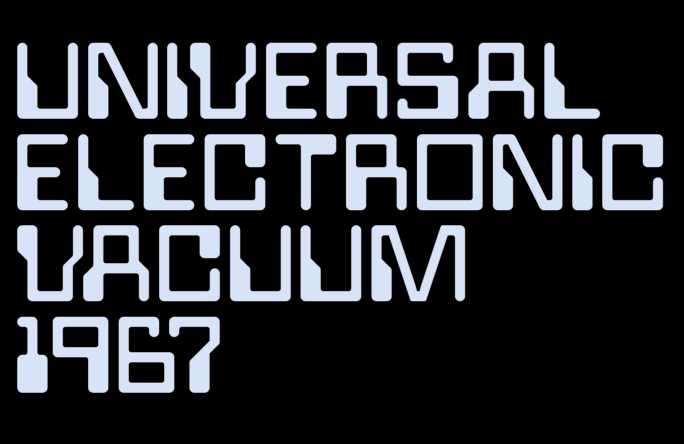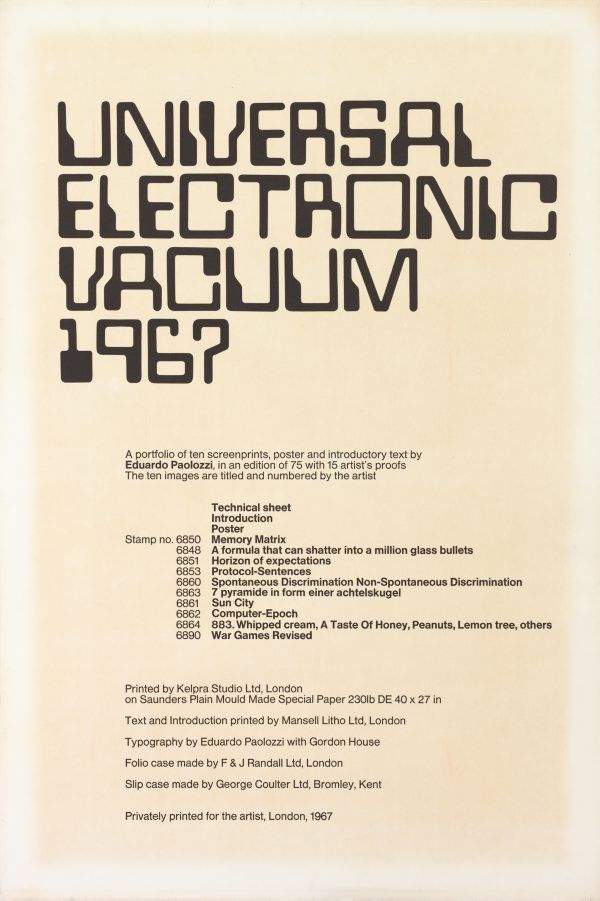
• STF_VAQUUM 67 - A MICR style font
The font is loosely based on a screenprint named "Vacuums"
taken from a 1967 portofolio work by Eduardo Paolozzi.
It's not an accurate 1:1 copy, instead I tried to make it slightly more proportional version inspired by the original work. The font is done in all caps with some glyph alternatives in the lowercase string in order to slightly more accurate mimic the original print text.
The original print was most likely based on the "Westminster" typeface
that was designed by Leo Maggs and was inspired by the MICR (magnetic ink character recognition) system used on bank cheques.
Several other imitations of Westminster are out there, with most well known probably being the "Data 70" typeface.
This was the original source for the Fontstruction.
The first two samples show an unbalanced A and V. I think you might consider changing them or adding some new ones. Good update.